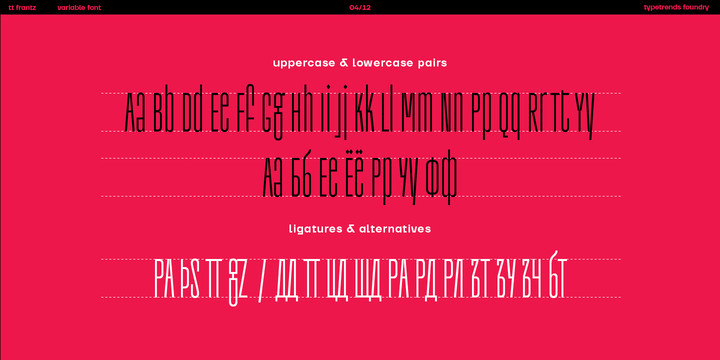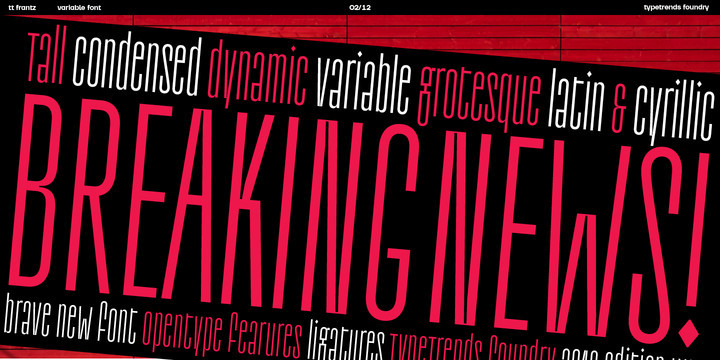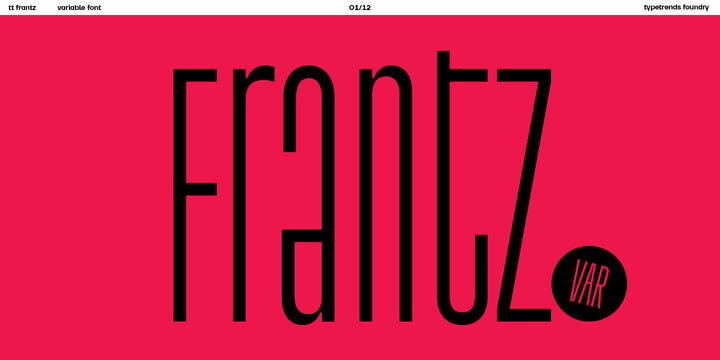
TT Frantz Font Family
TT Frantz is an experimental variable font, distinguished by its slimness and lightness. The variation in the font affects the change in the height of the mean line – by moving the axis adjustment slider you can easily raise or lower the mean line of the font.